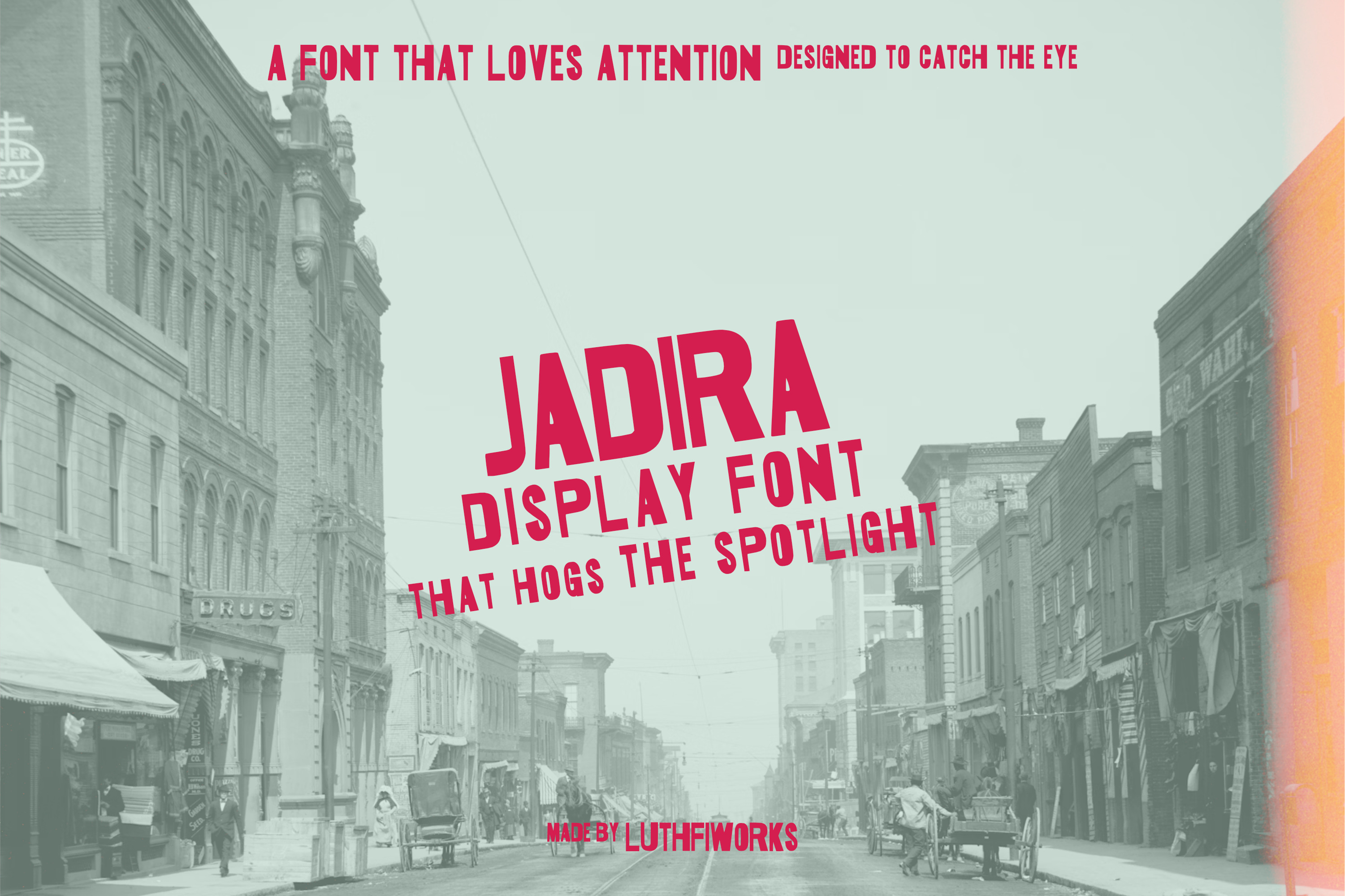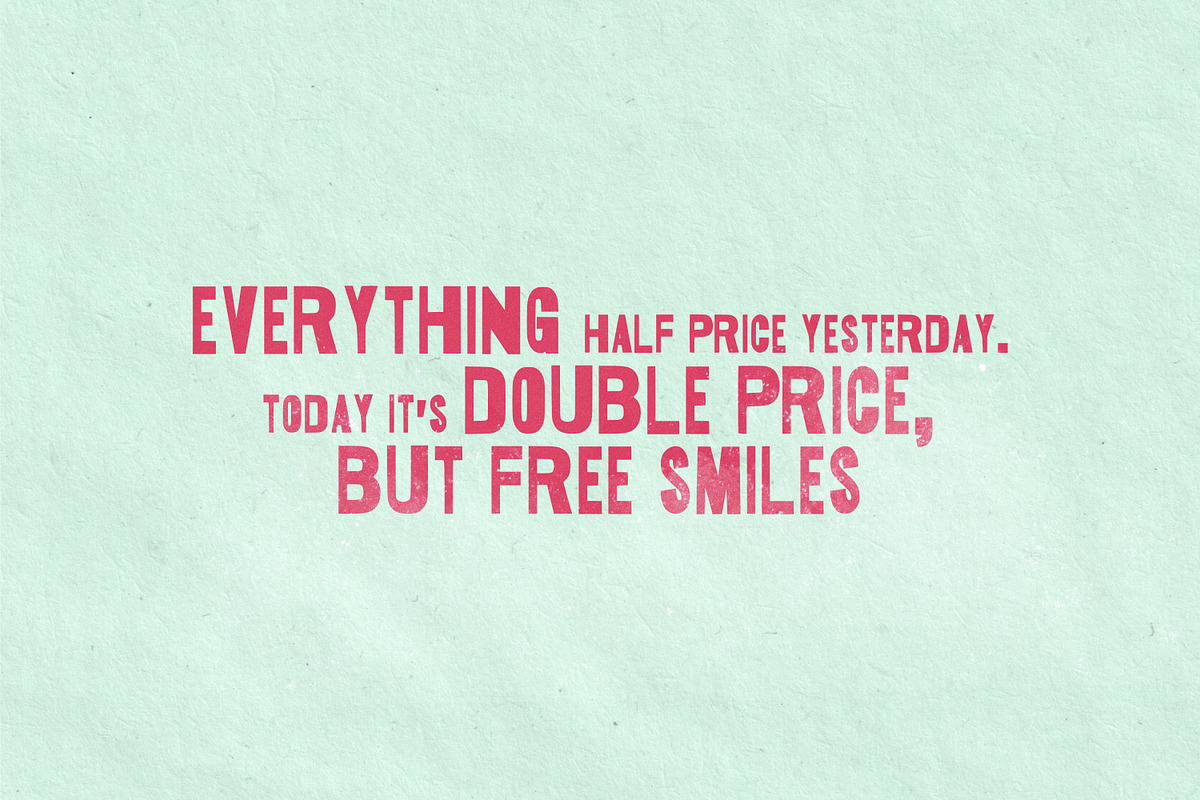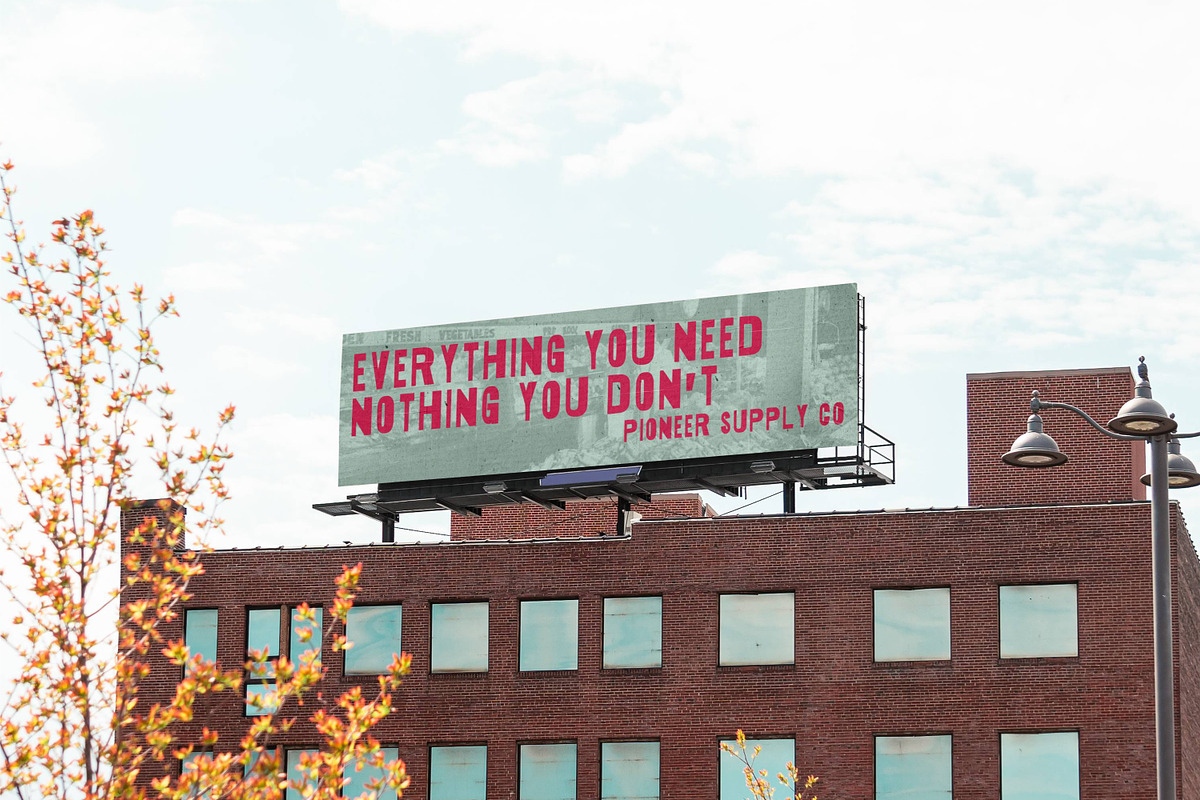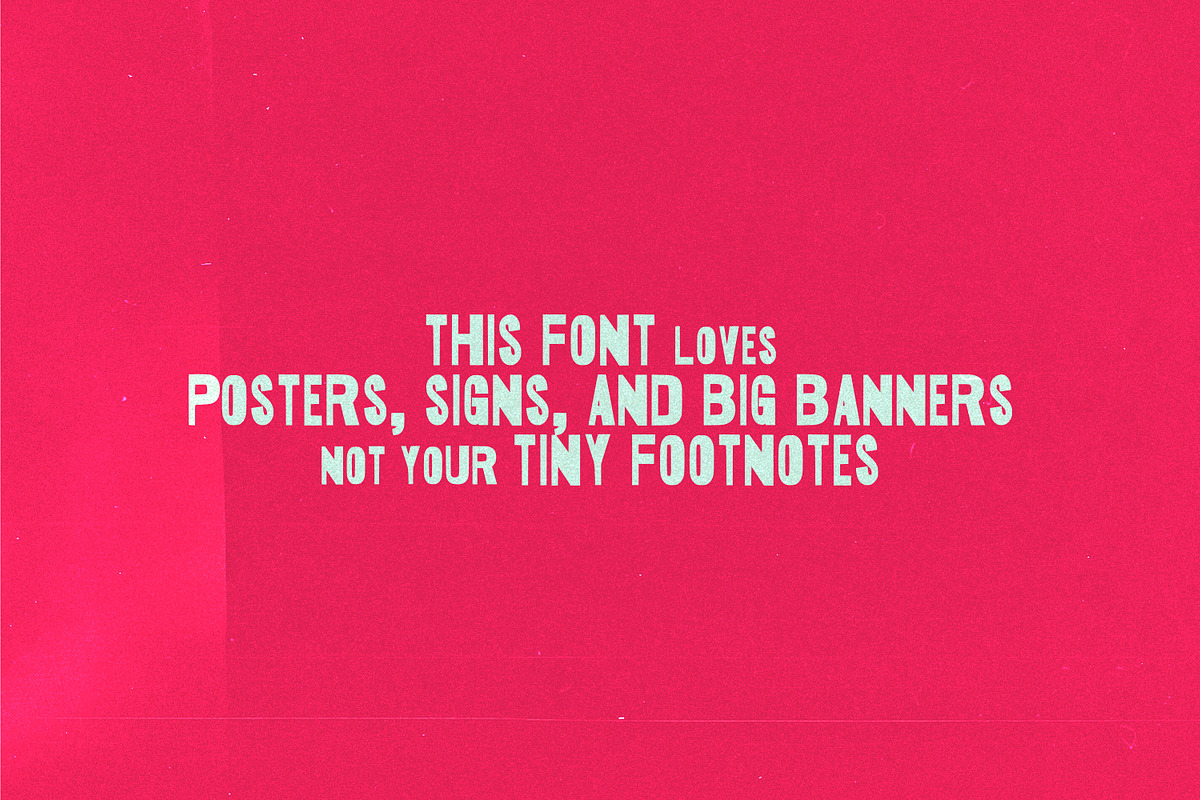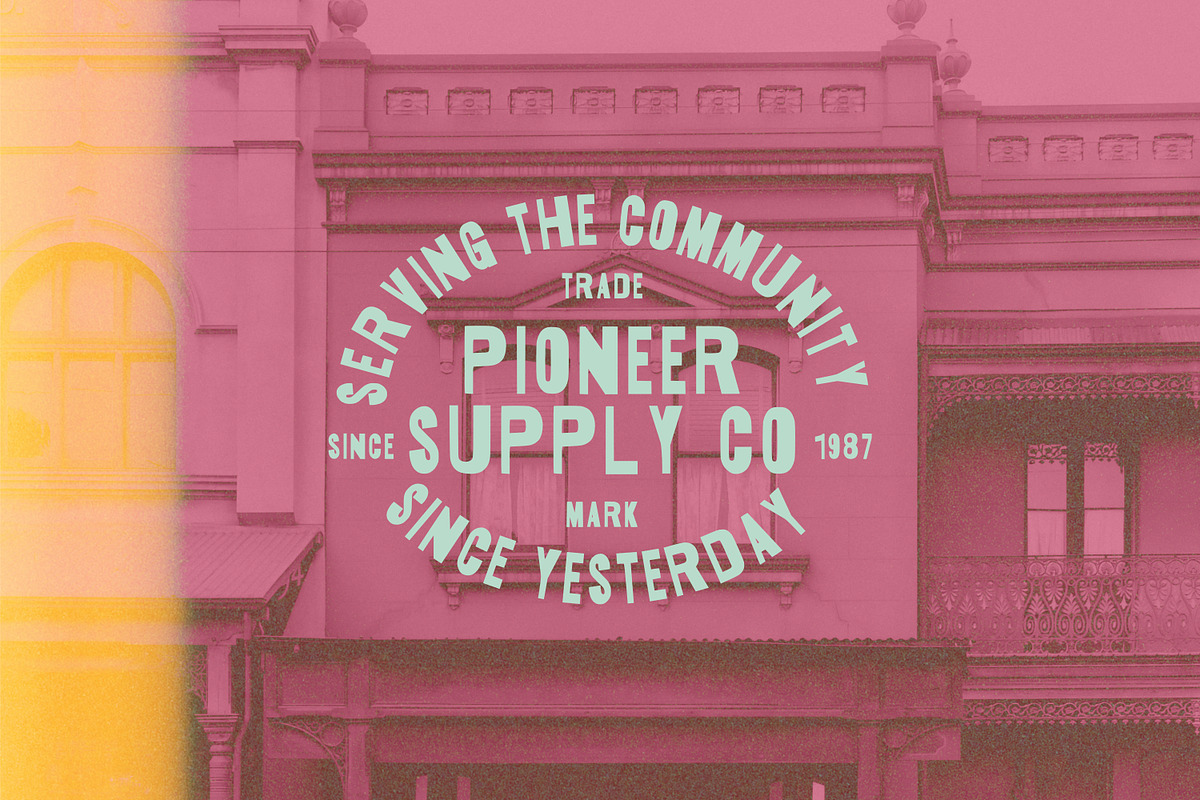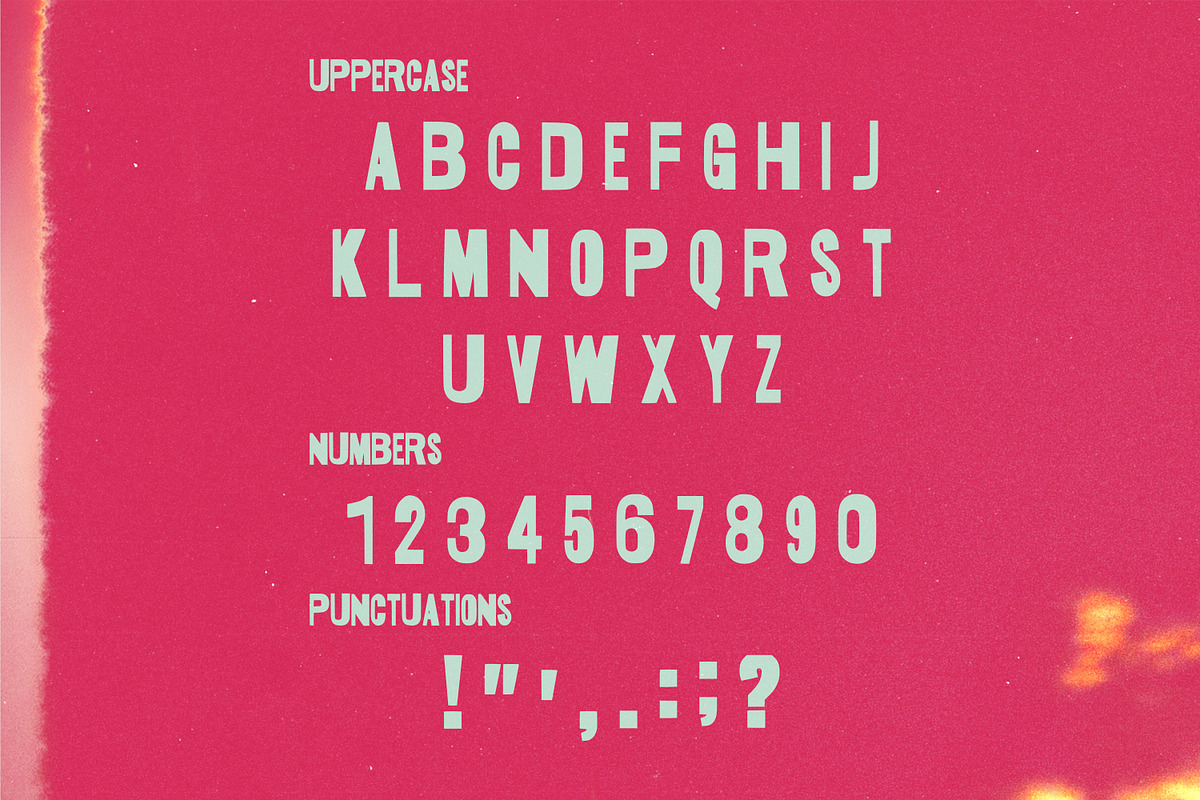
Jadira Display Font
Jadira is a handcrafted retro display typeface inspired by the funky signage and bold lettering styles of the 70s and 80s. Its unique mix of bold and thin strokes creates a playful yet balanced rhythm, giving every letter a dynamic personality.
Designed for impact, Jadira works best in big banners, storefront signs, posters, and standout headlines. From vintage-inspired logos to modern packaging and apparel, Jadira brings strong retro vibes with a casual, approachable twist. Jadira Typeface 1
- Handcrafted retro display style
- Bold + thin stroke contrast
- Perfect for large-scale applications (signs, banners, posters)
- Works well for logos, packaging, and apparel
- Playful vintage character with modern versatility
Usage Recommendations
- Best used at large sizes for maximum impact.
- Ideal for display purposes, not body text.
- Pair with a clean sans-serif or minimal serif font for body copy to balance the retro energy.